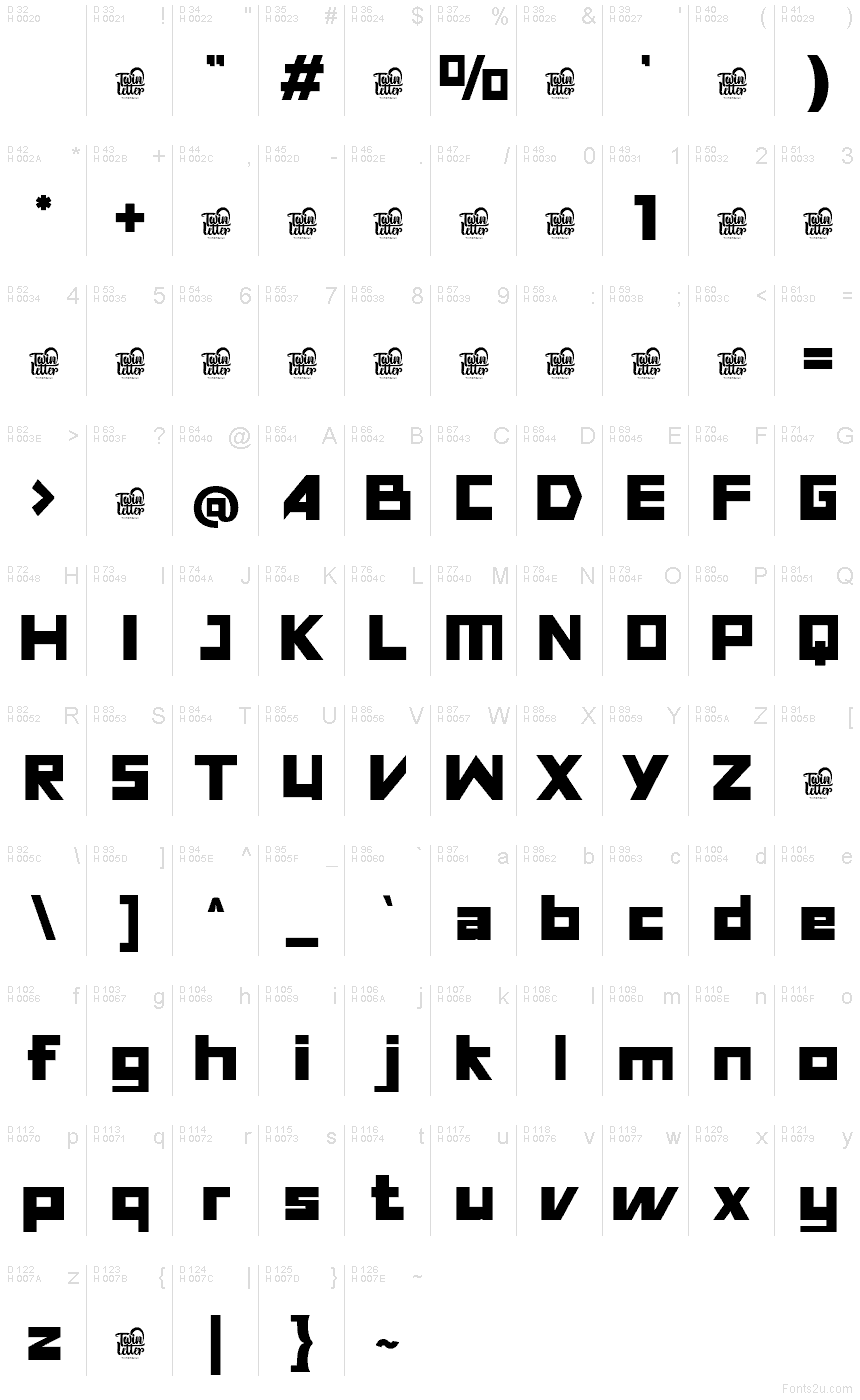
FLASTY Regular
Flasty font by Twinletter is a free techno display font with an impressive industrial vibe. It has a geometric style, combines letter cuts and edges, and conveys a modern style to the reader. Its minimalist angular form has wide applications, making it the go-to font for all your futuristic design ideas.